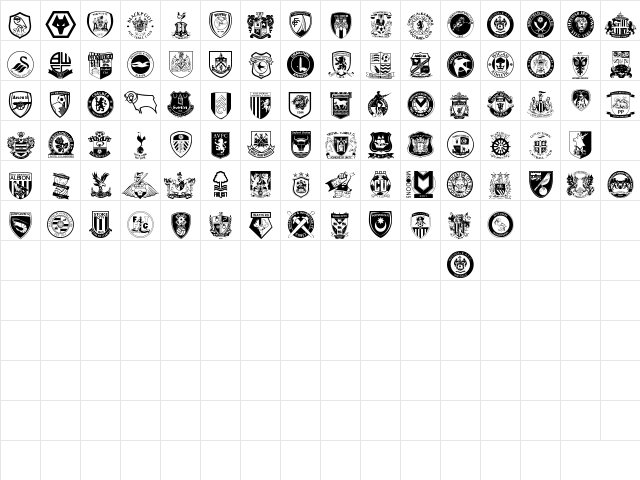
English Football Club Badges Regular
Design Context for English Football Club Badges Typeface
English Football Club Badges is a composed and adaptable typeface that performs quietly and consistently across a wide range of design contexts.